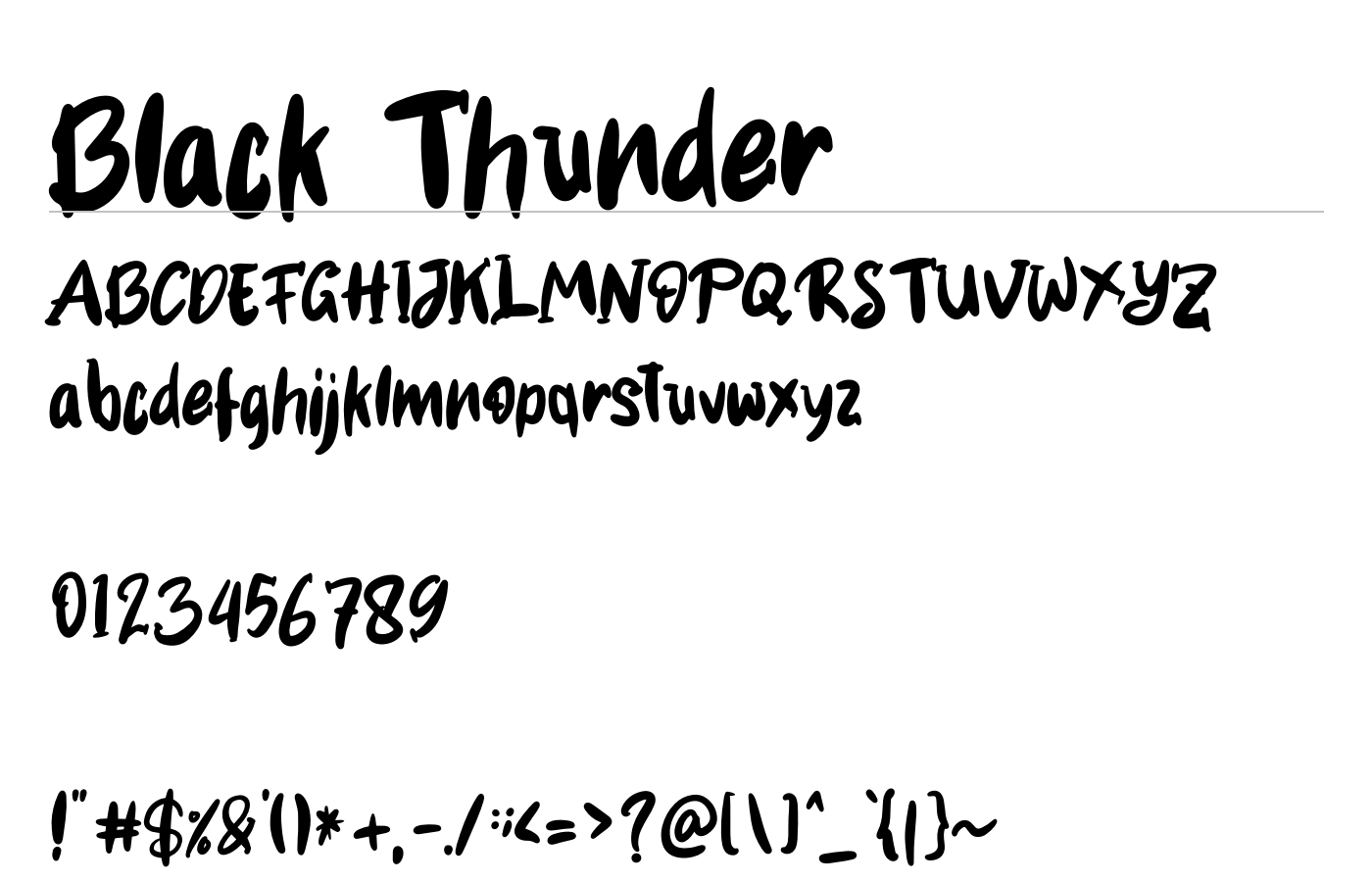
Black Thunder is a bold, playful handwritten font with a casual and energetic vibe. Its thick, rounded strokes and slightly uneven letterforms give it a friendly, approachable personality, making it ideal for creative projects, youthful branding, and informal designs. This font works well for logos, posters, and headlines where a fun, dynamic touch is needed.
Black Thunder Font
About Black Thunder Font